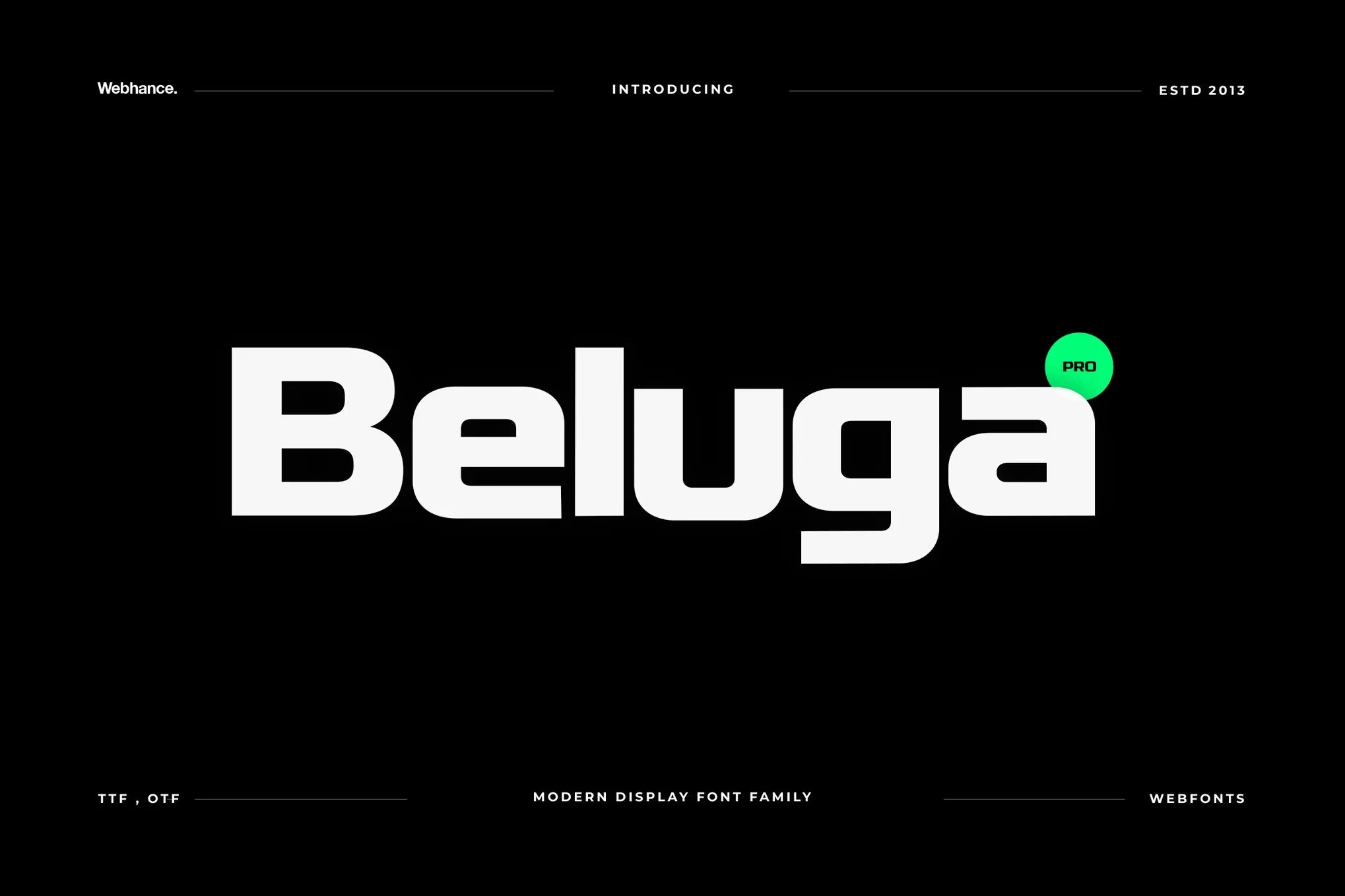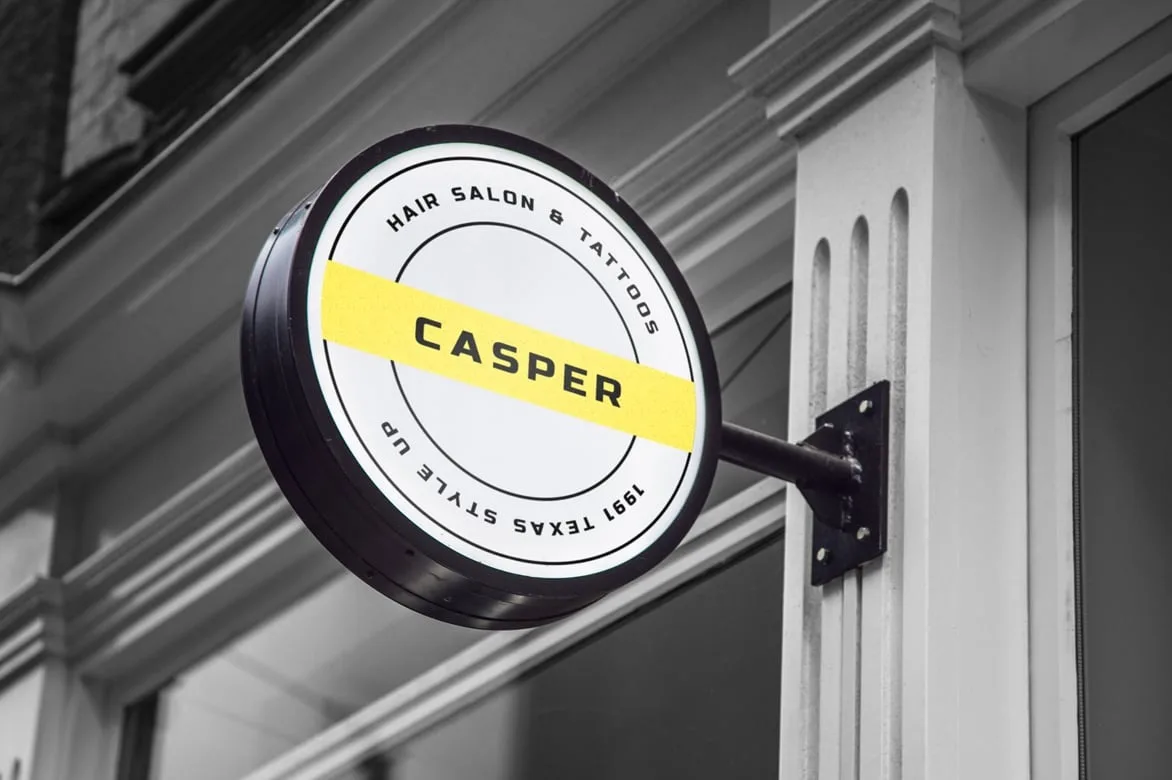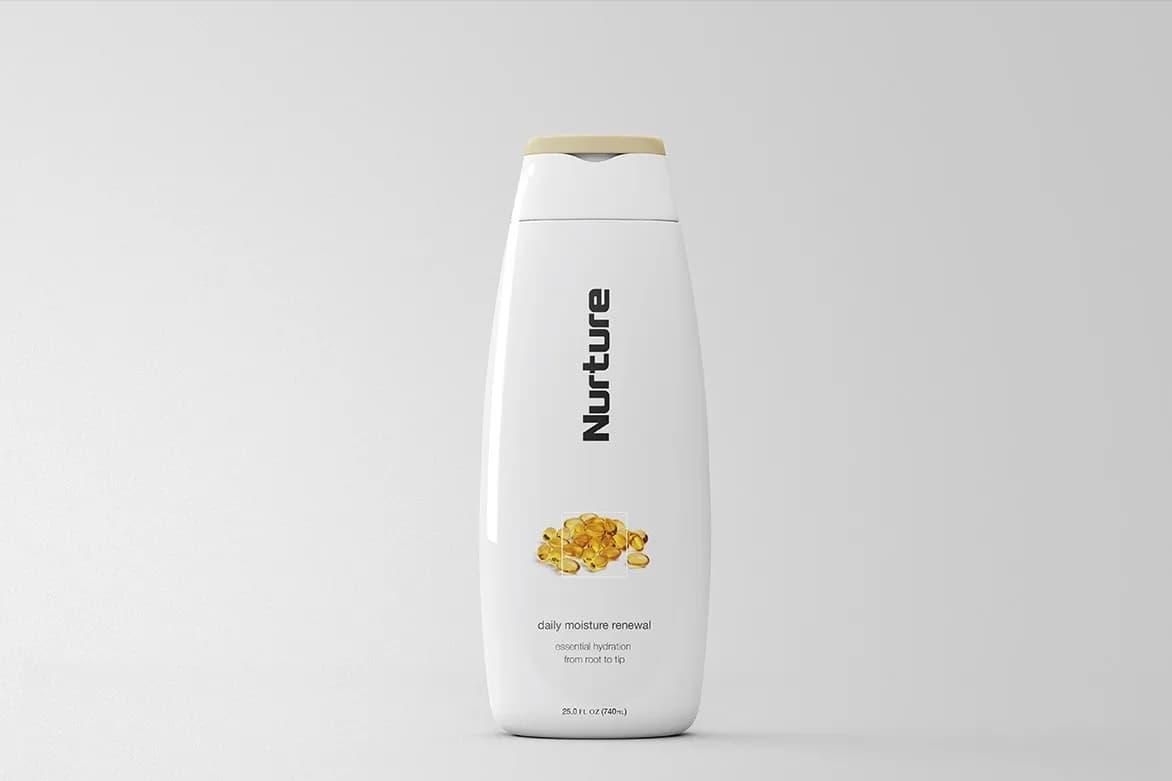
Beluga
Meet the Beluga font family, a contemporary sans-serif typeface designed by Webhance Studio to offer a sleek and minimalist solution for diverse projects. With its exceptionally clean lines and balanced proportions, Beluga delivers a distinctly modern aesthetic while ensuring outstanding readability across all mediums. This font is crafted to enhance your designs, maintaining a high-quality look and feel that effortlessly elevates them to world-class standards. Beluga offers full versatility, including uppercase and lowercase letters, numbers, and punctuation. The comprehensive pack provides OTF, TTF, and full Web Fonts (EOT, TTF, WOFF) for seamless integration, plus you'll receive free future updates and feature additions.